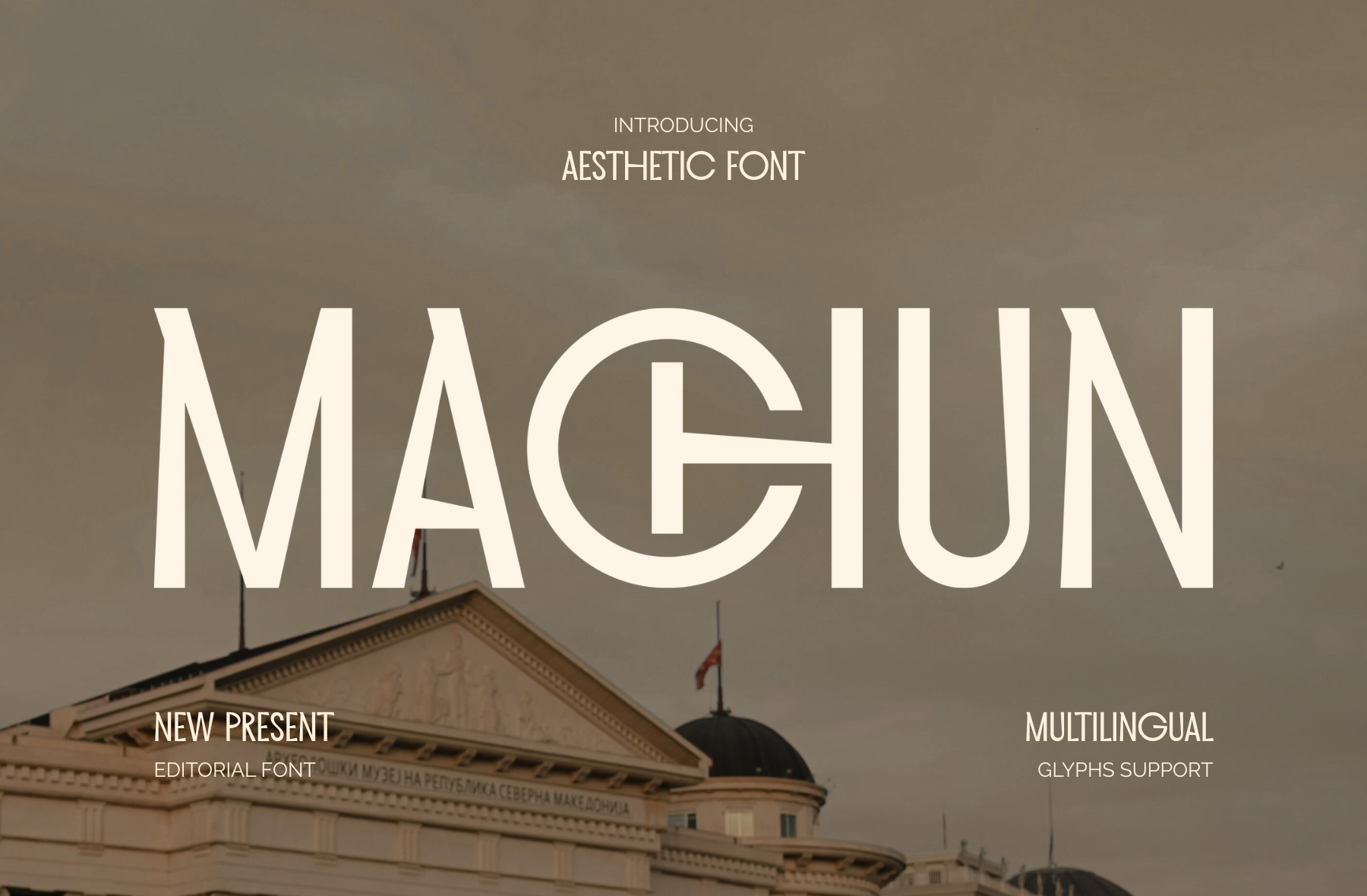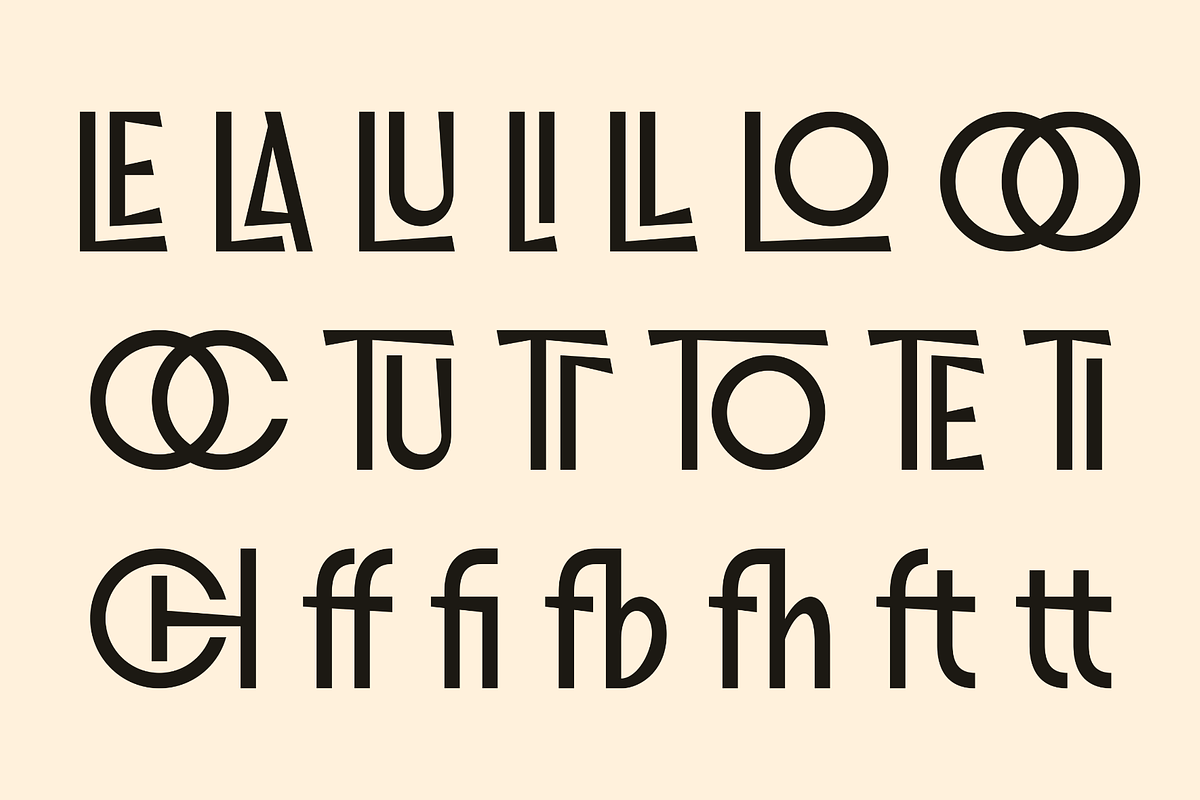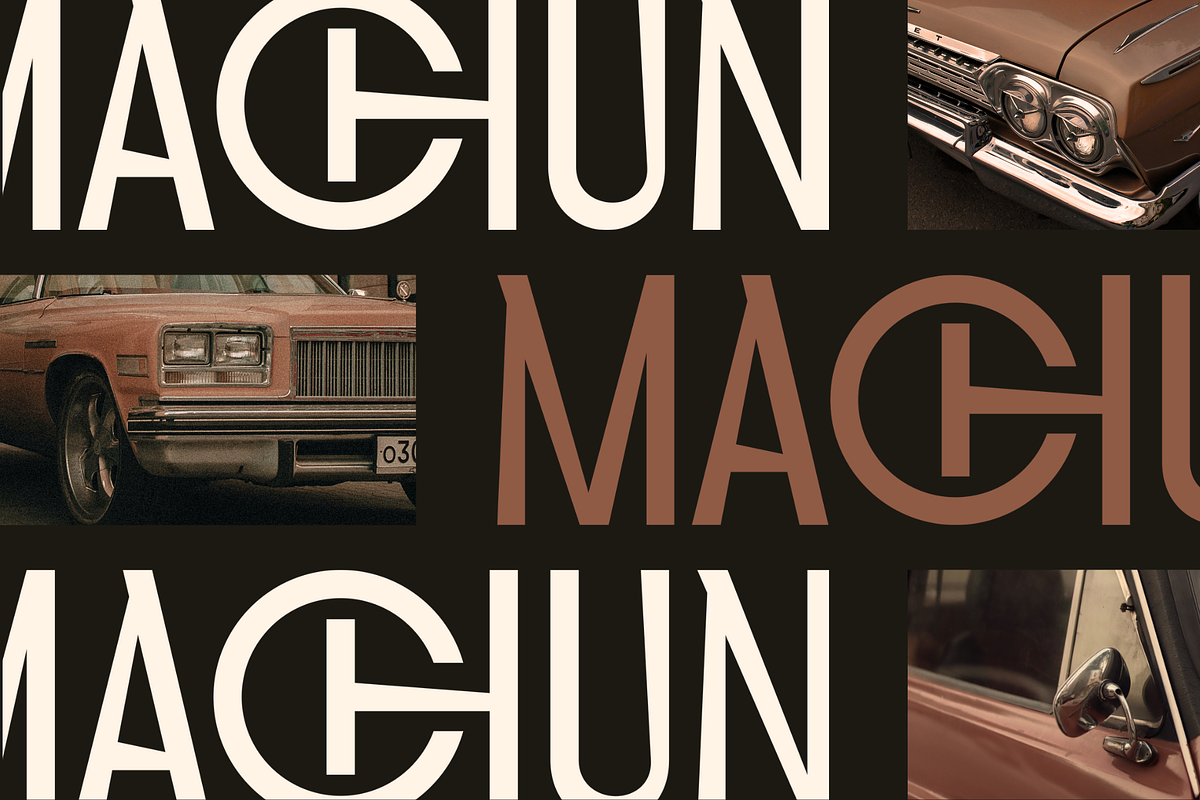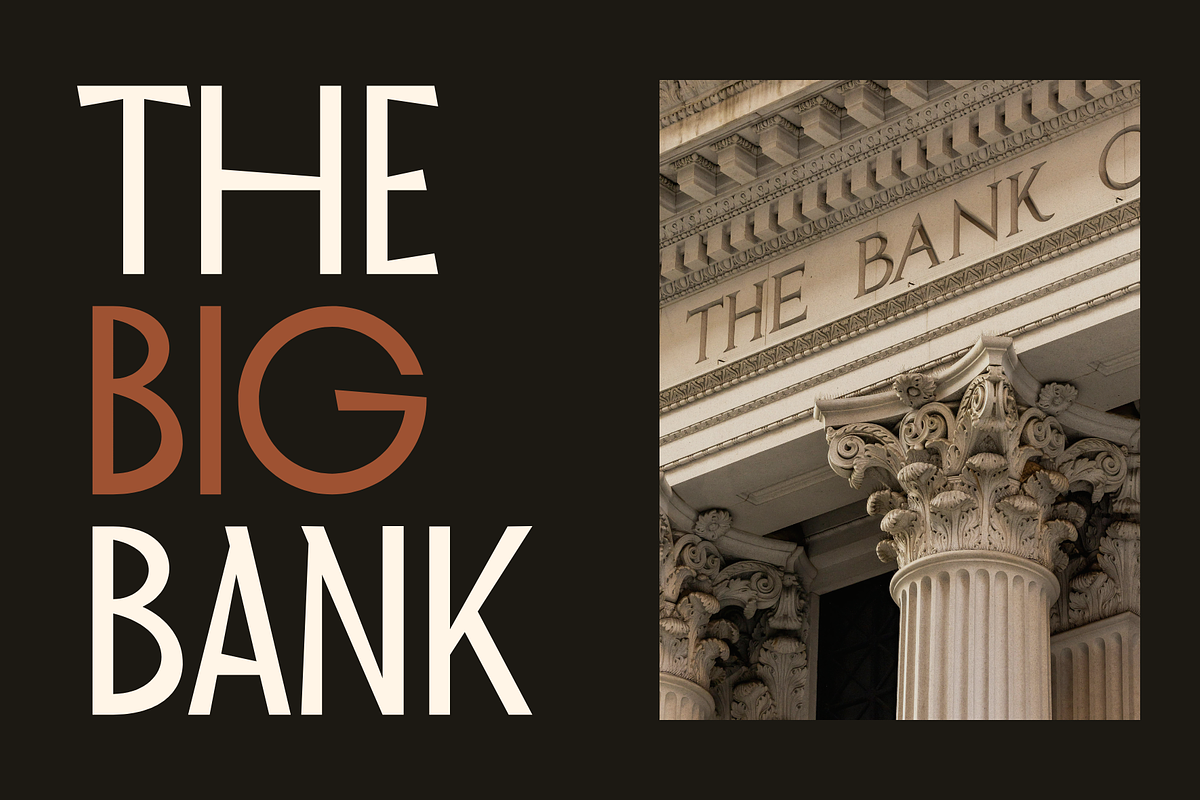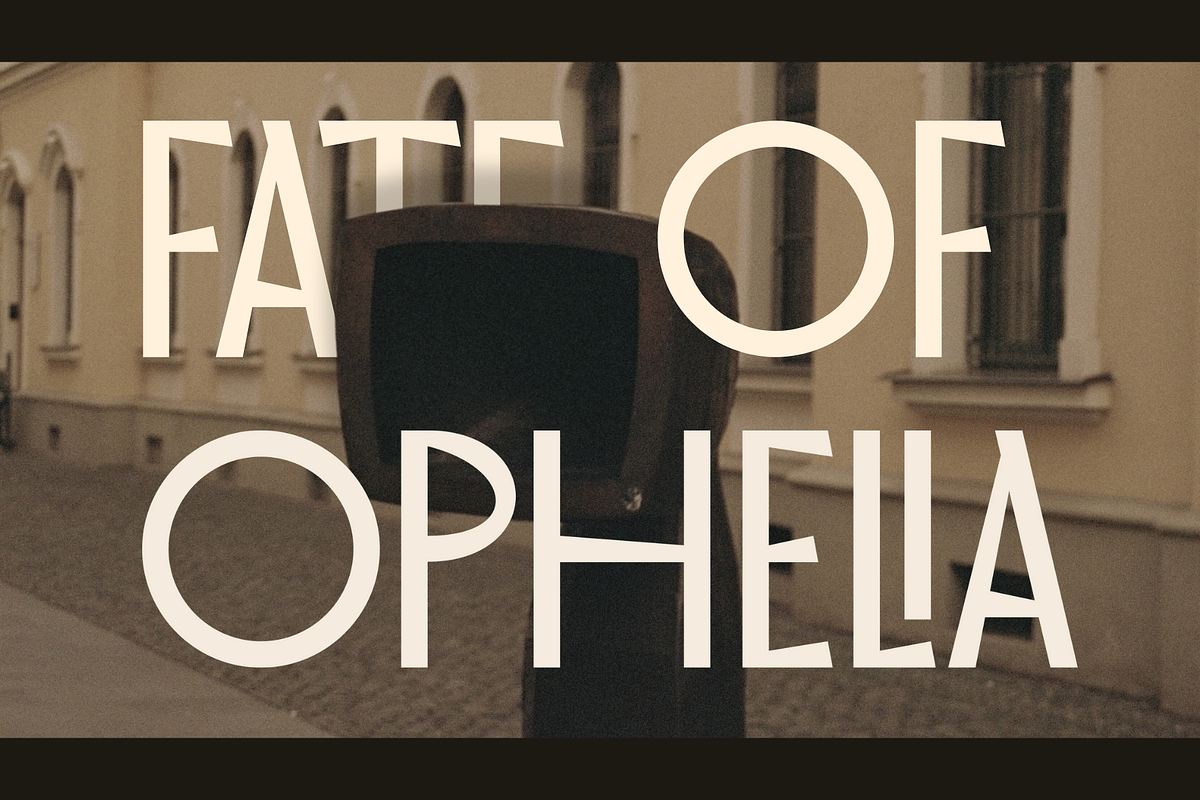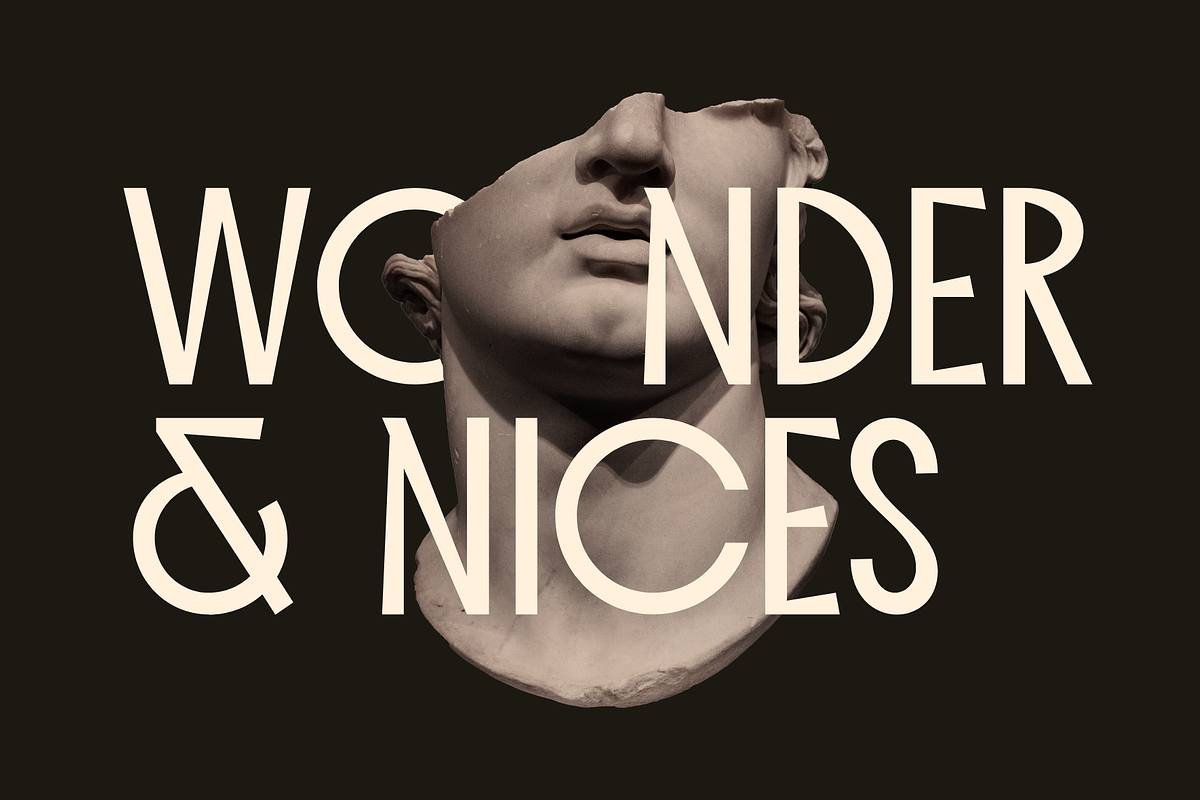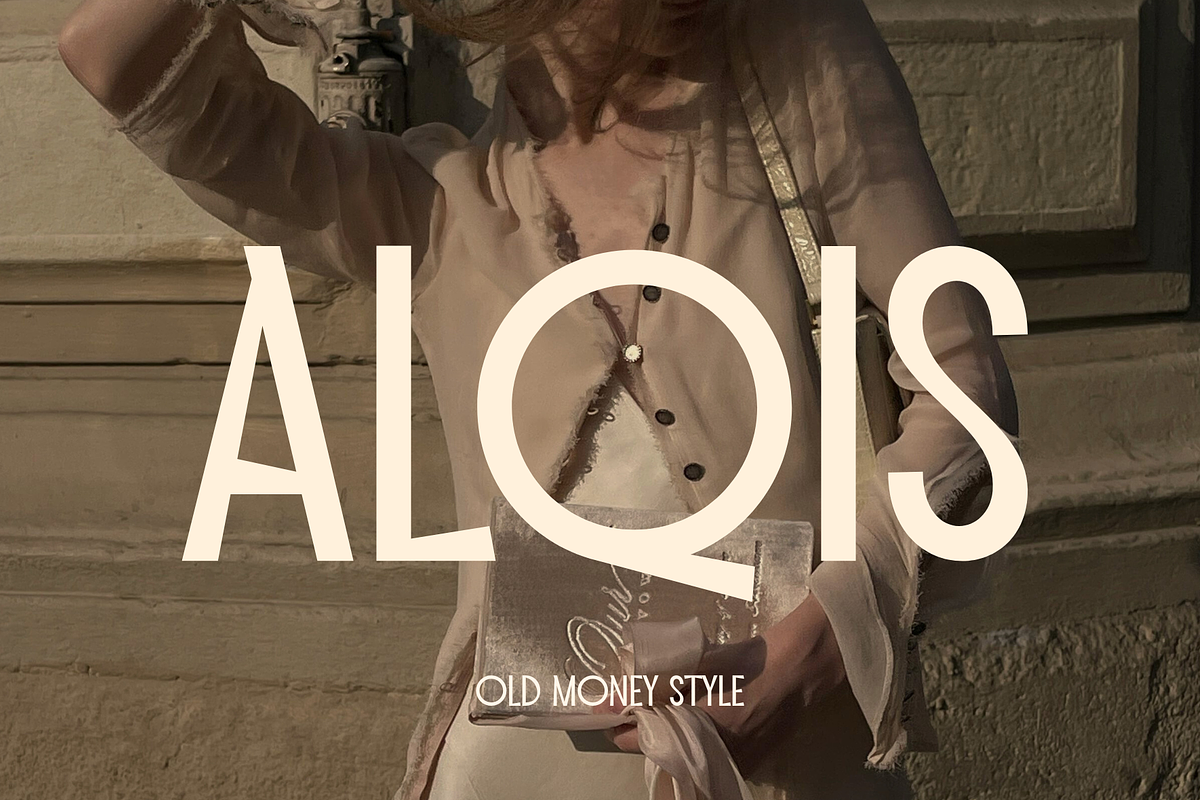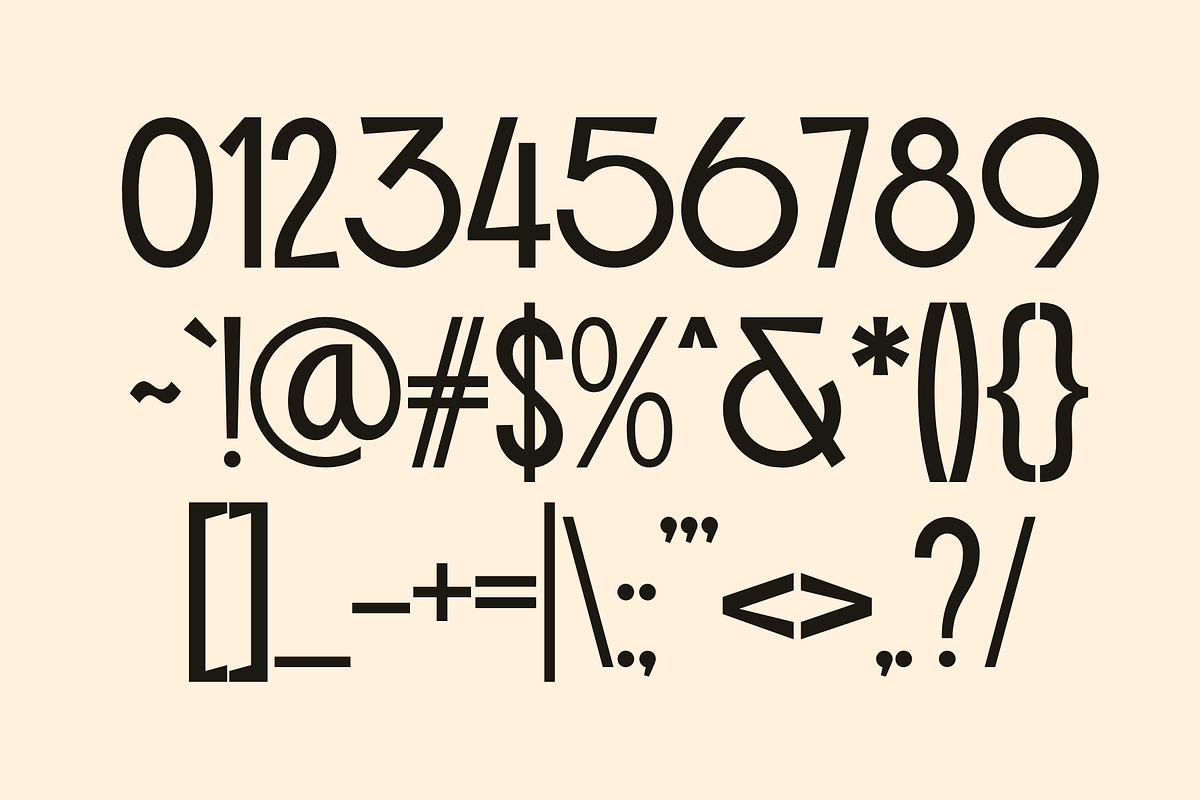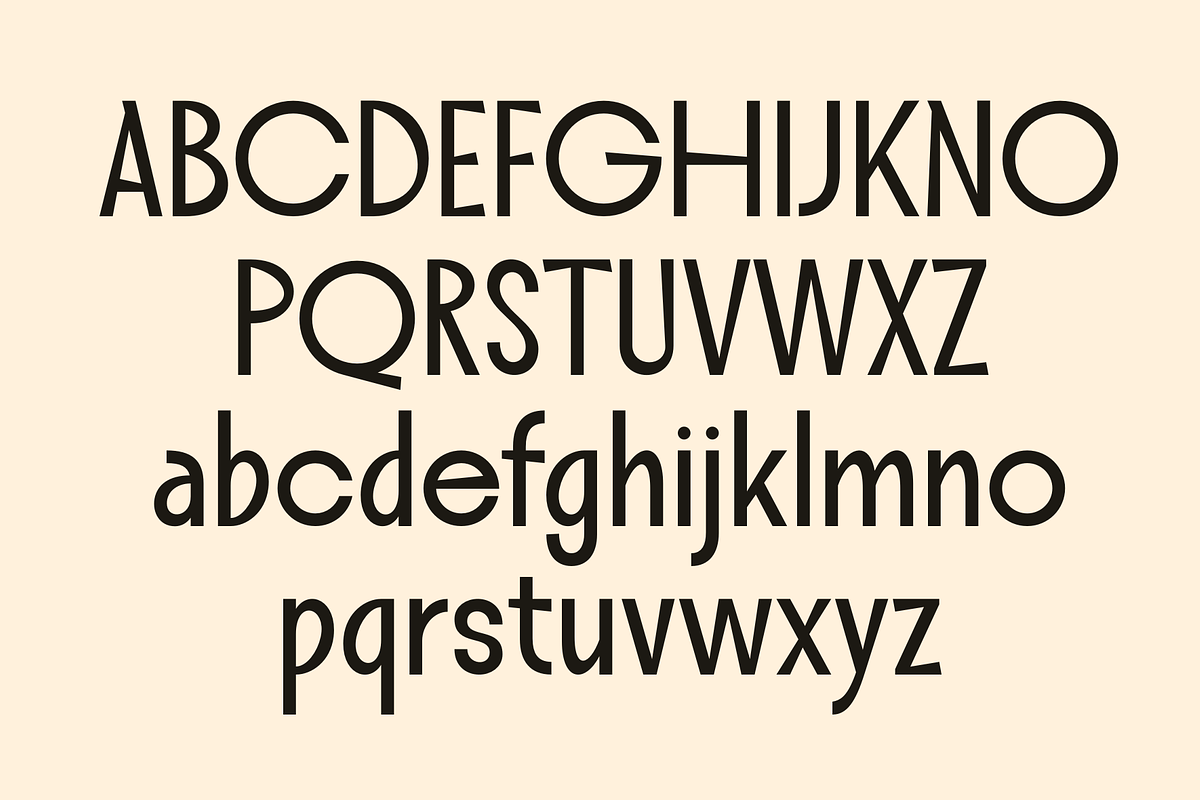
Machun – Elegant Editorial Typeface
Introducing our new product Machun – Elegant Editorial Typeface
Machun is a refined and aesthetic display font that blends modern elegance with a subtle, classic touch. Designed with clean lines, unique character shapes, and balanced proportions, this font provides an easy-to-read visual identity.
Perfect for editorial layouts, branding, fashion magazines, posters, logos, headlines, and packaging, Machun stands out with its stylish personality and contemporary feel. Its distinctive letterforms add an artistic touch, making each design unique and visually appealing.
With multilingual glyph support, Machun is a versatile choice for designers seeking a modern yet timeless font that enhances both digital and print projects.